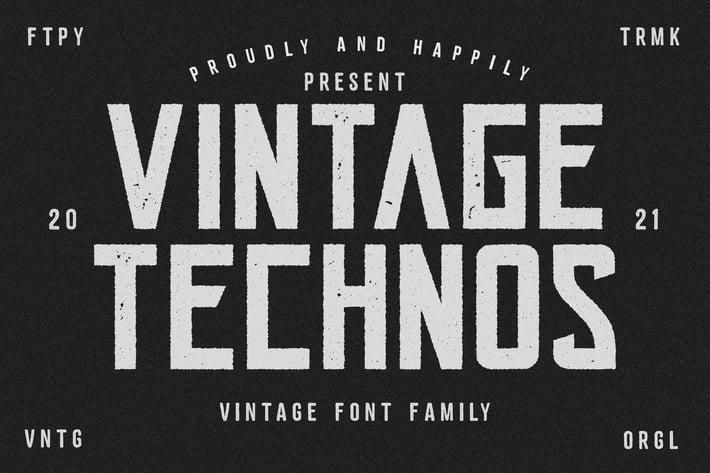
Vintage Technos Font
typecoconut
Inspired by old style technology, vintage technos comes to make your project perfect. Vintage Technos will take your upcoming projects to the next level! Use it to add that special retro touch to any design idea you can think of!